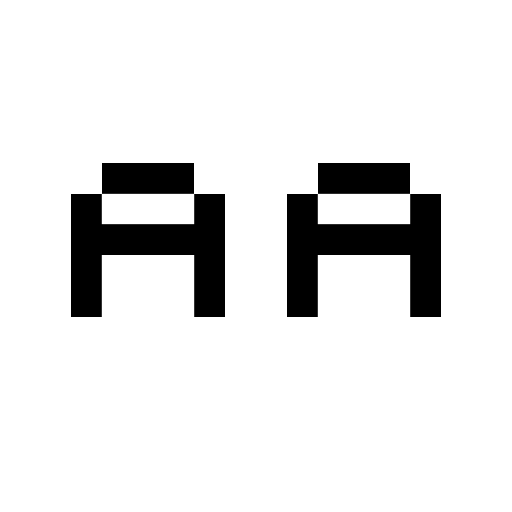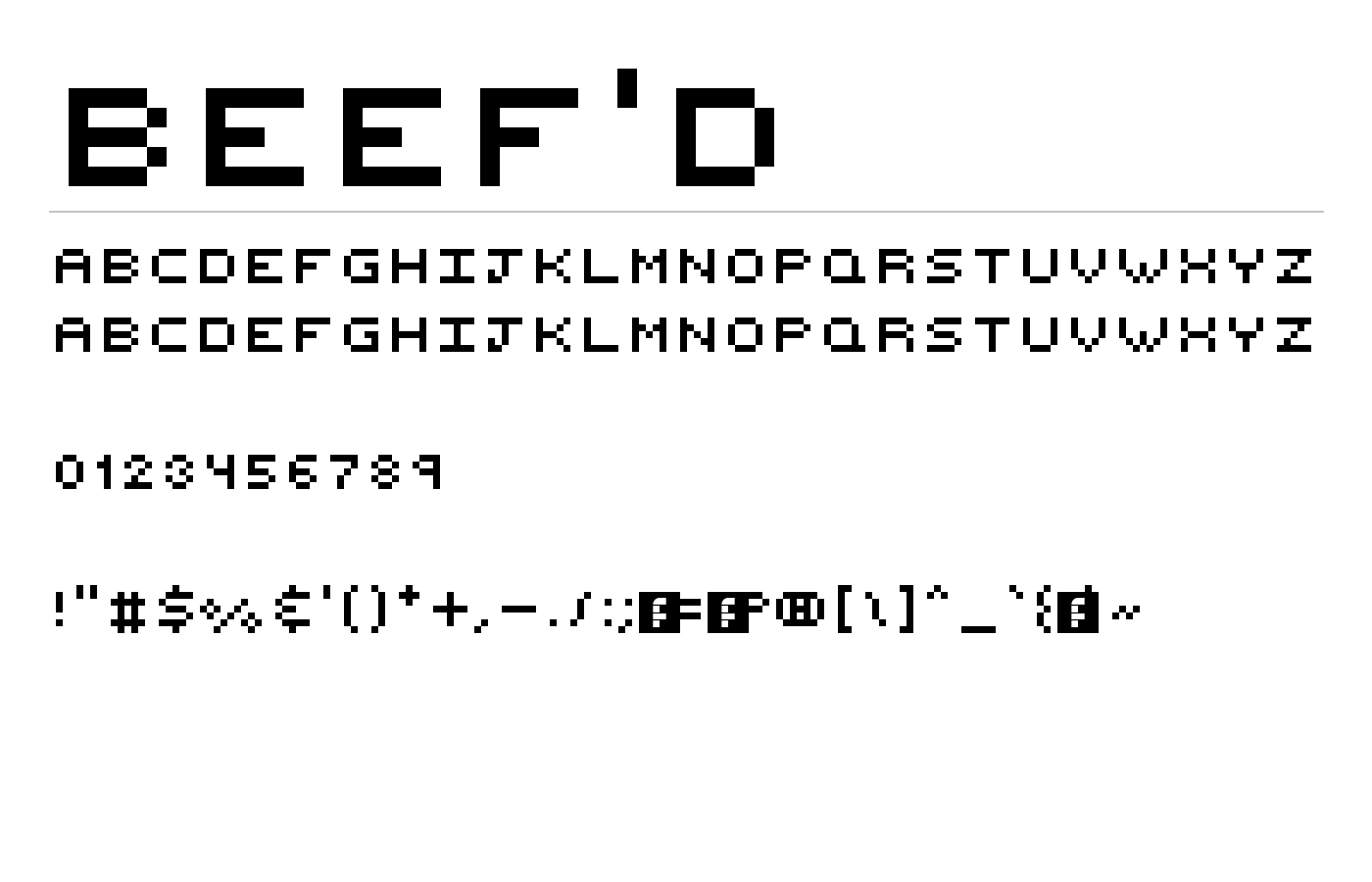
Beef'd is a bold, pixelated sans serif font with a strong, blocky style that evokes a retro, digital feel. Its consistent stroke weight and square shapes make it ideal for video games, tech-themed projects, and pixel art designs, bringing a nostalgic yet modern vibe. This font works best for headlines and logos where a chunky, unmistakable presence is needed.
Beef'd Font
About Beef'd Font